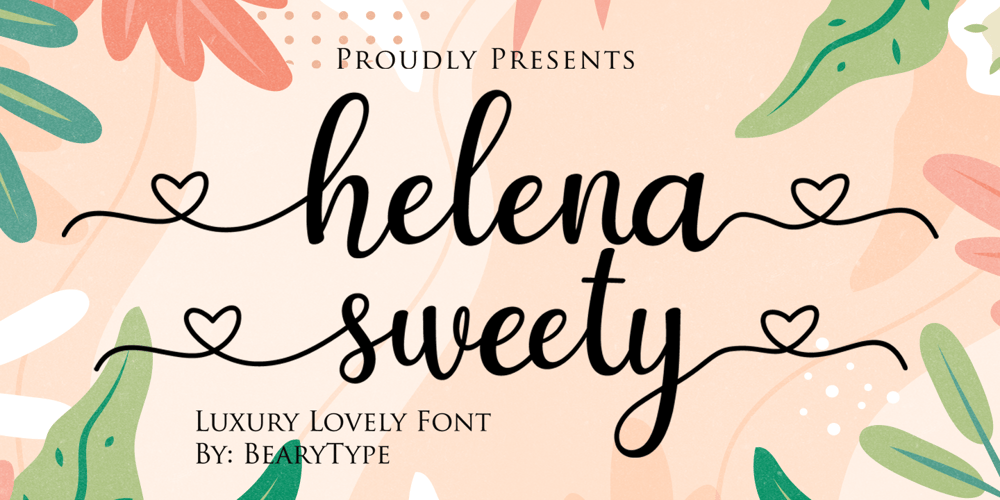
Helena Sweety Font Family was designed by Dian Haniffan Hadi and published by Beary. Helena Sweety contains 1 styles and family package options. Helena Sweety feels equally charming and elegant. It looks stunning on wedding invitations, thank you cards, quotes, greeting cards, logos, business cards and every other design which needs a handwritten touch.This font is PUA encoded which means you can access all of the glyphs and swashes with ease! It features a varying baseline, smooth lines, gorgeous glyphs and stunning alternates.